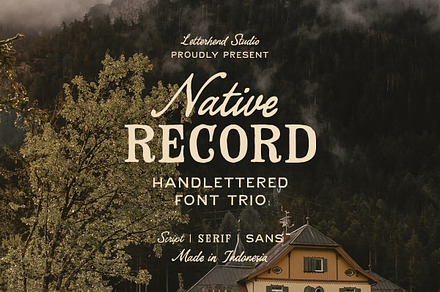
The Native Record Font Trio
A font trio combining a script, a display face and a supporting sans, drawn to work together across a full identity.
Three-font systems cover the standard hierarchy needs – headline, accent and body – without requiring anything to be sourced separately.
- Coordinated across the trio
- Alternates and ligatures
Made for
- Brand identity systems
- Packaging and label design
- Event and wedding stationery
- Editorial and web design